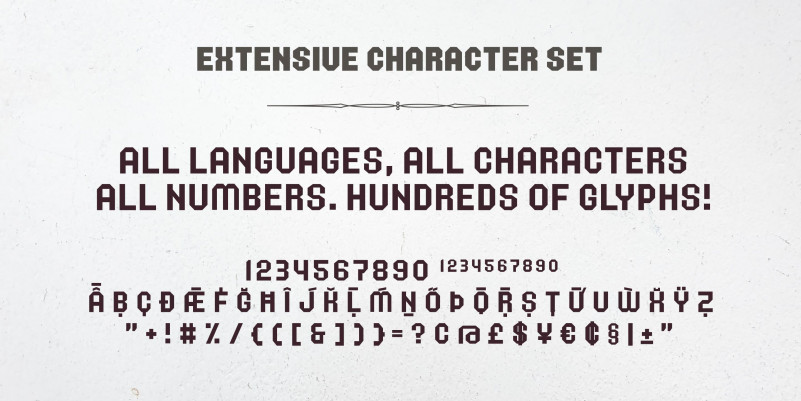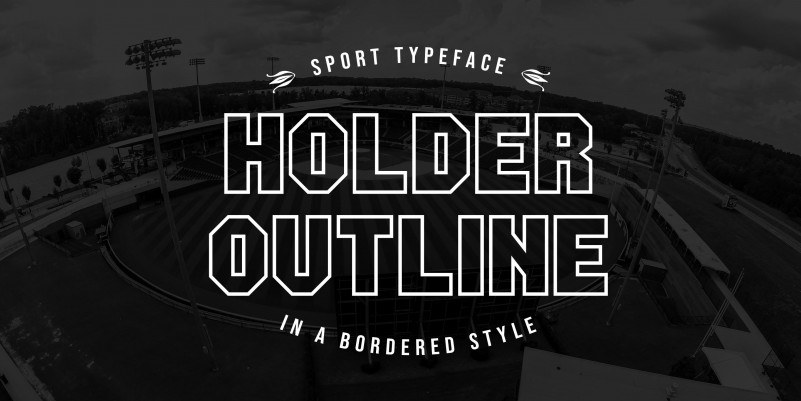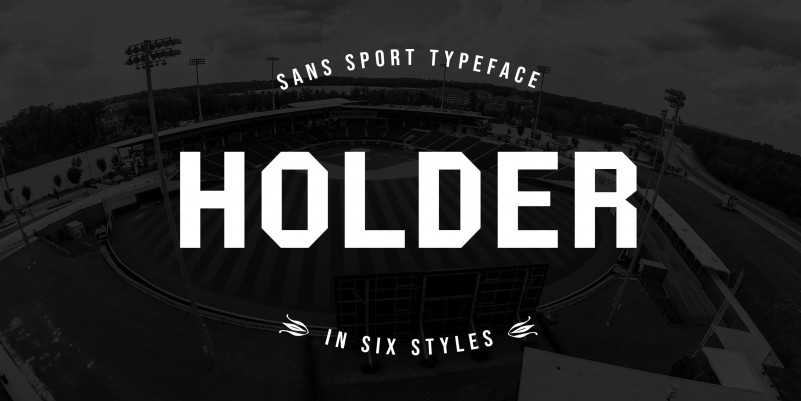
Holder Font
Holder Sans Serif Font, It is the ideal font for all your design requirements, such as branding, product packaging, or even just to add a touch of flair to your editorial work. This fine font features a contemporary design with a unique shape that will add elegance to any design.